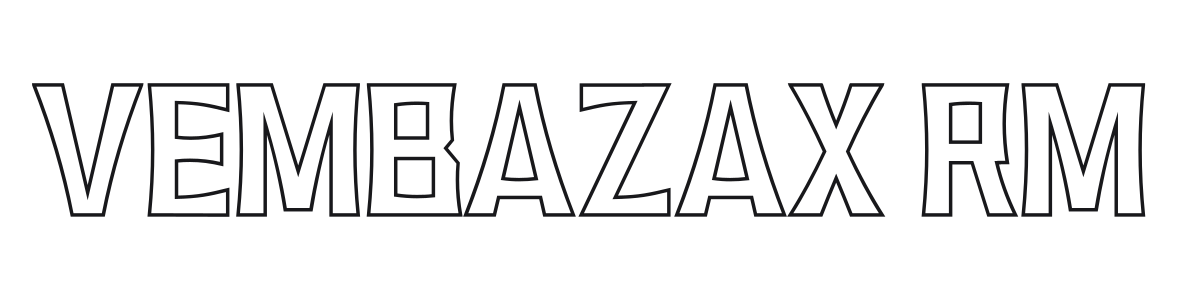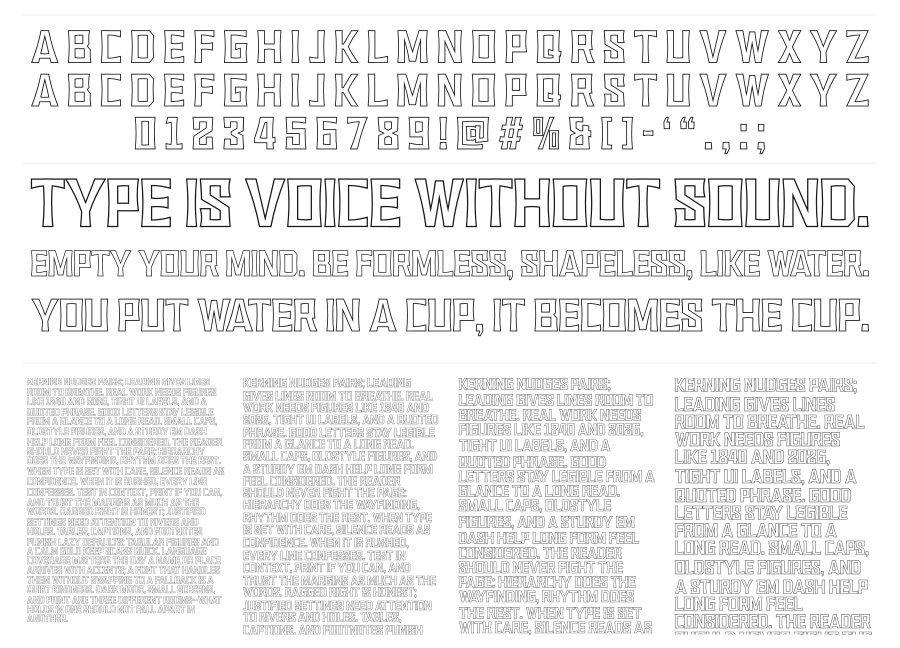
Vembazax Rm
Vembazax Rm is a condensed geometric outline sans with a heavy underlying structure and clean angular construction. The hollow outline treatment gives it a bold, high-contrast presence at large sizes, with segmented joints and squared terminals that push it toward sci-fi and industrial territory. Designed for titles, posters, and display contexts where impact matters.